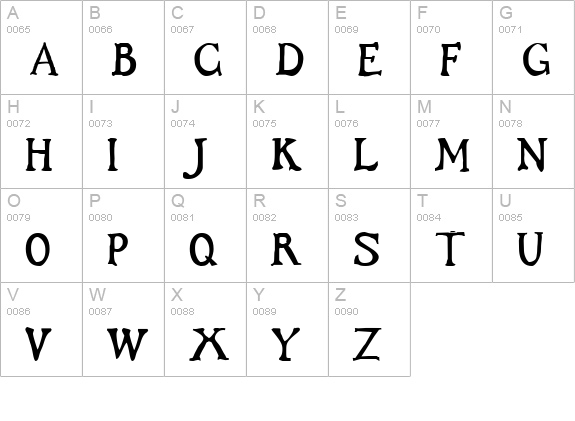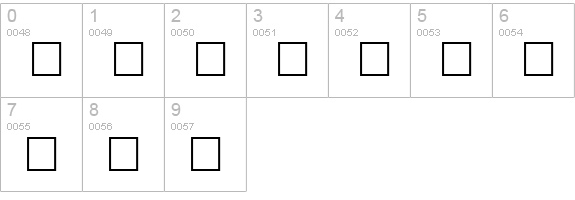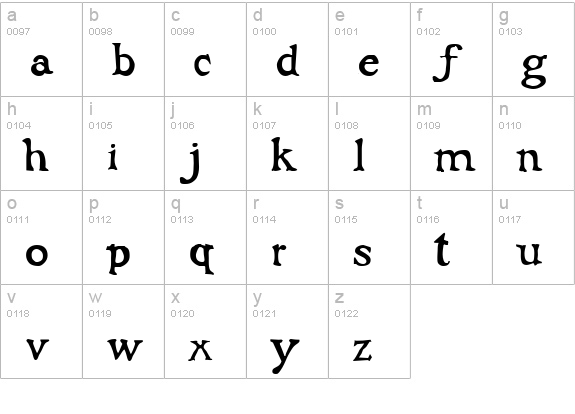
Buccaneer Font Details
Buccaneer font captures the adventurous spirit of the high seas with its bold and swashbuckling design. Inspired by the daring exploits of pirates, this typeface exudes a sense of mystery and intrigue, making it perfect for projects that demand a touch of daring and excitement. The sharp serifs and intricate details of Buccaneer font add a touch of old-world charm, while its strong lines and curves command attention. Best of all, Buccaneer font is available for free download at FontsMarket.com. So whether you're working on a project that needs a touch of adventure or simply want to add a bold statement to your designs, Buccaneer font is the perfect choice. Download it today and set sail on a typographic journey like no other.